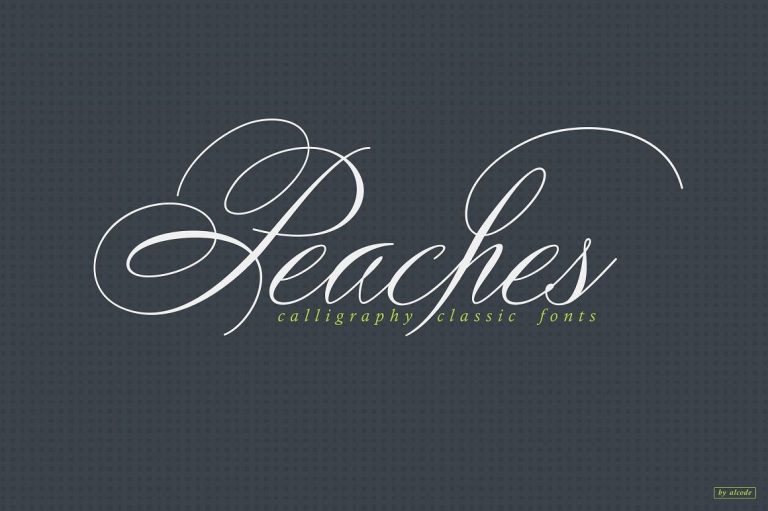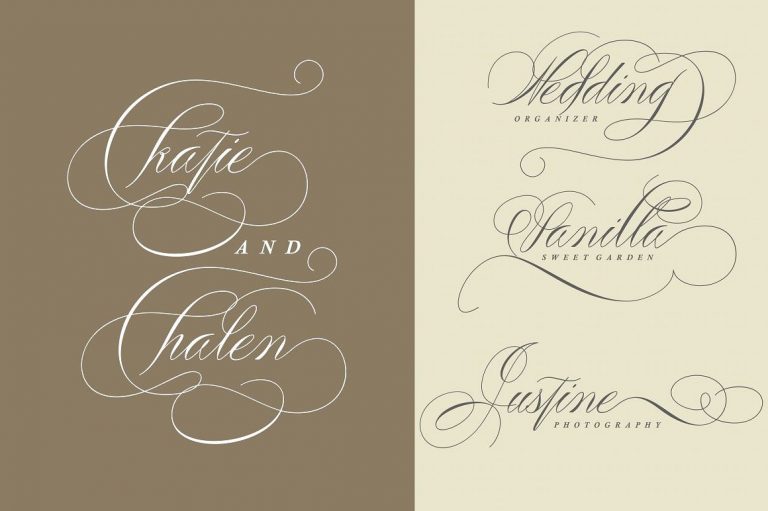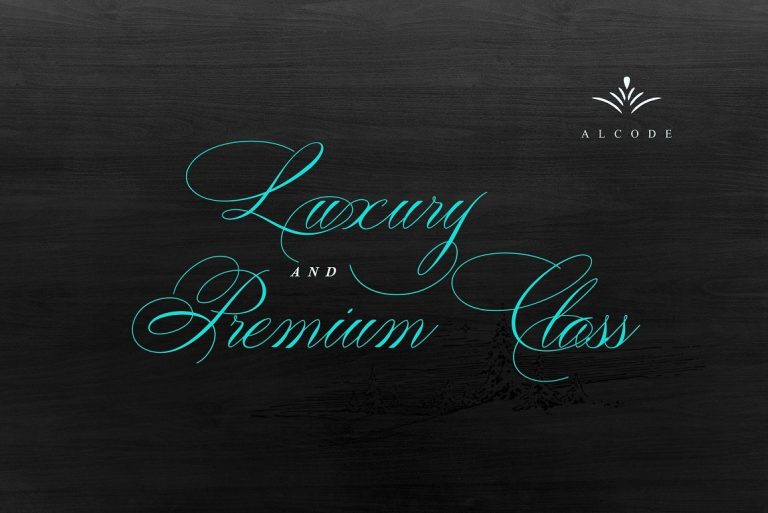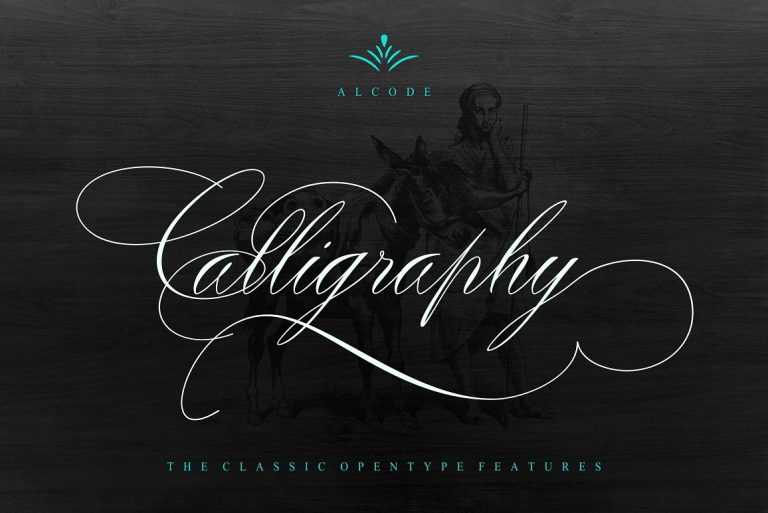
Peaches Calligraphic font
Introducing Peaches, font created by Alcode. Peaches is a classic calligraphic font. This is a classic thin font with an oblique style. Here you will get a beautiful classic font. I’m sure, this font will make your rich look elegant, sweet and perfect.